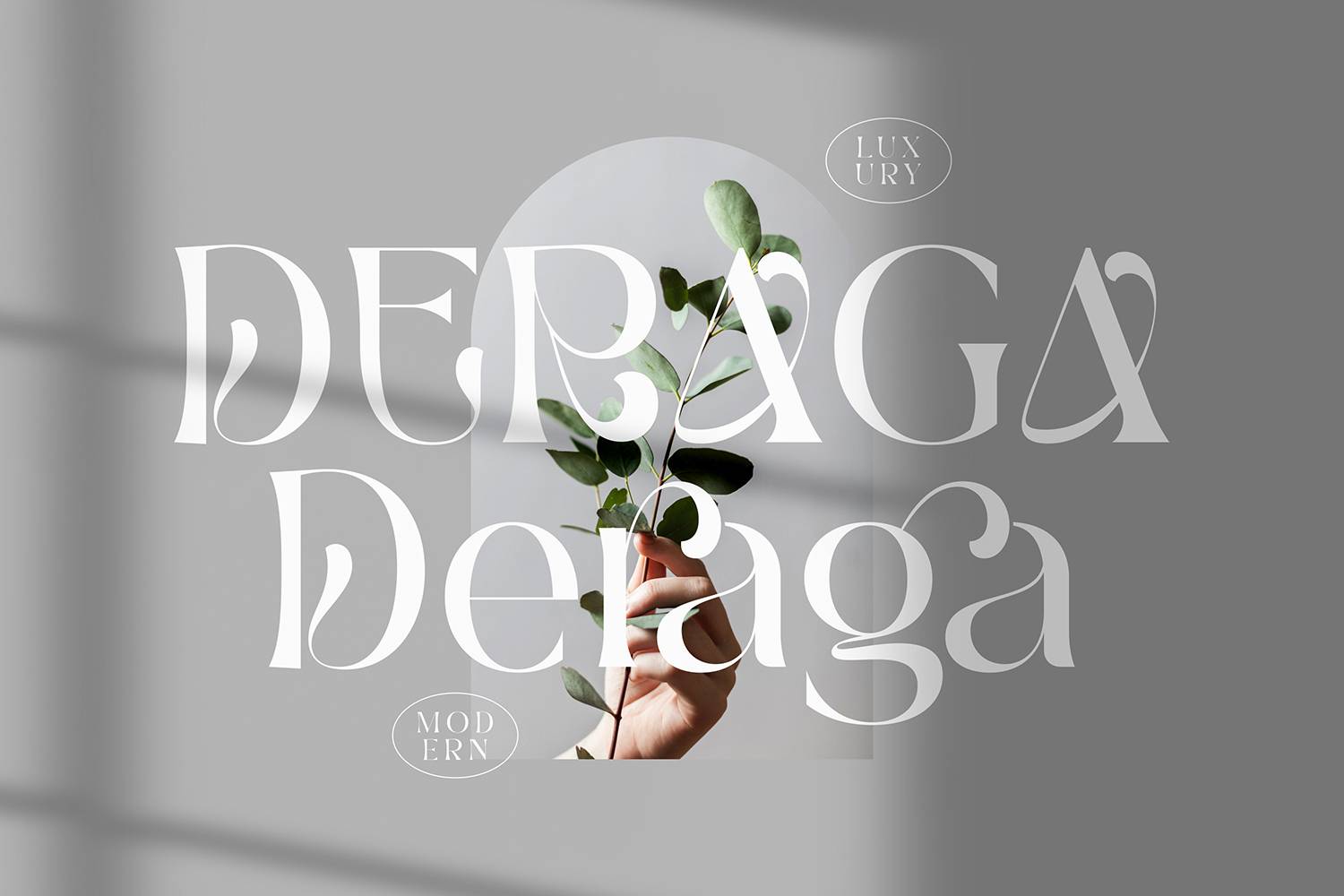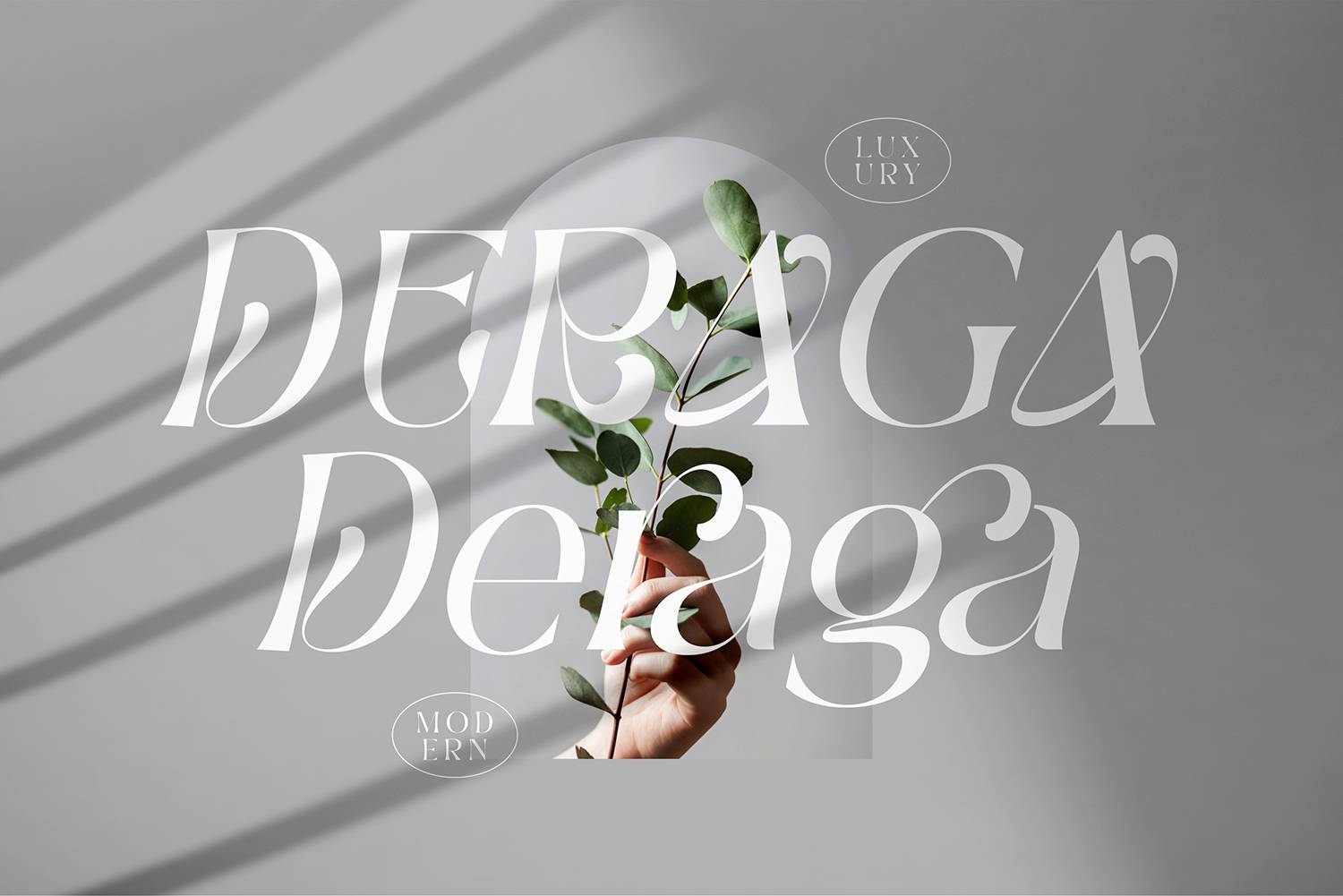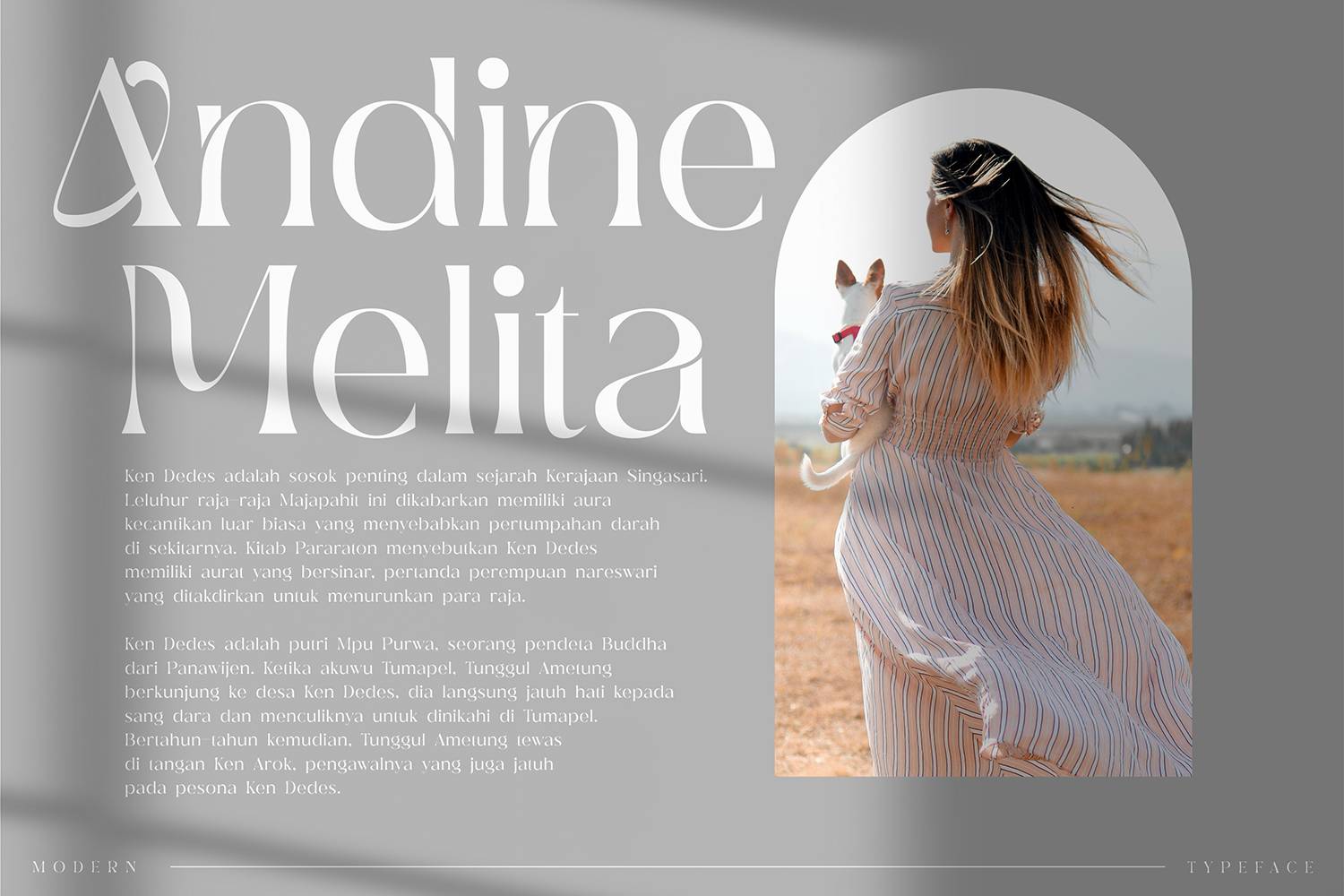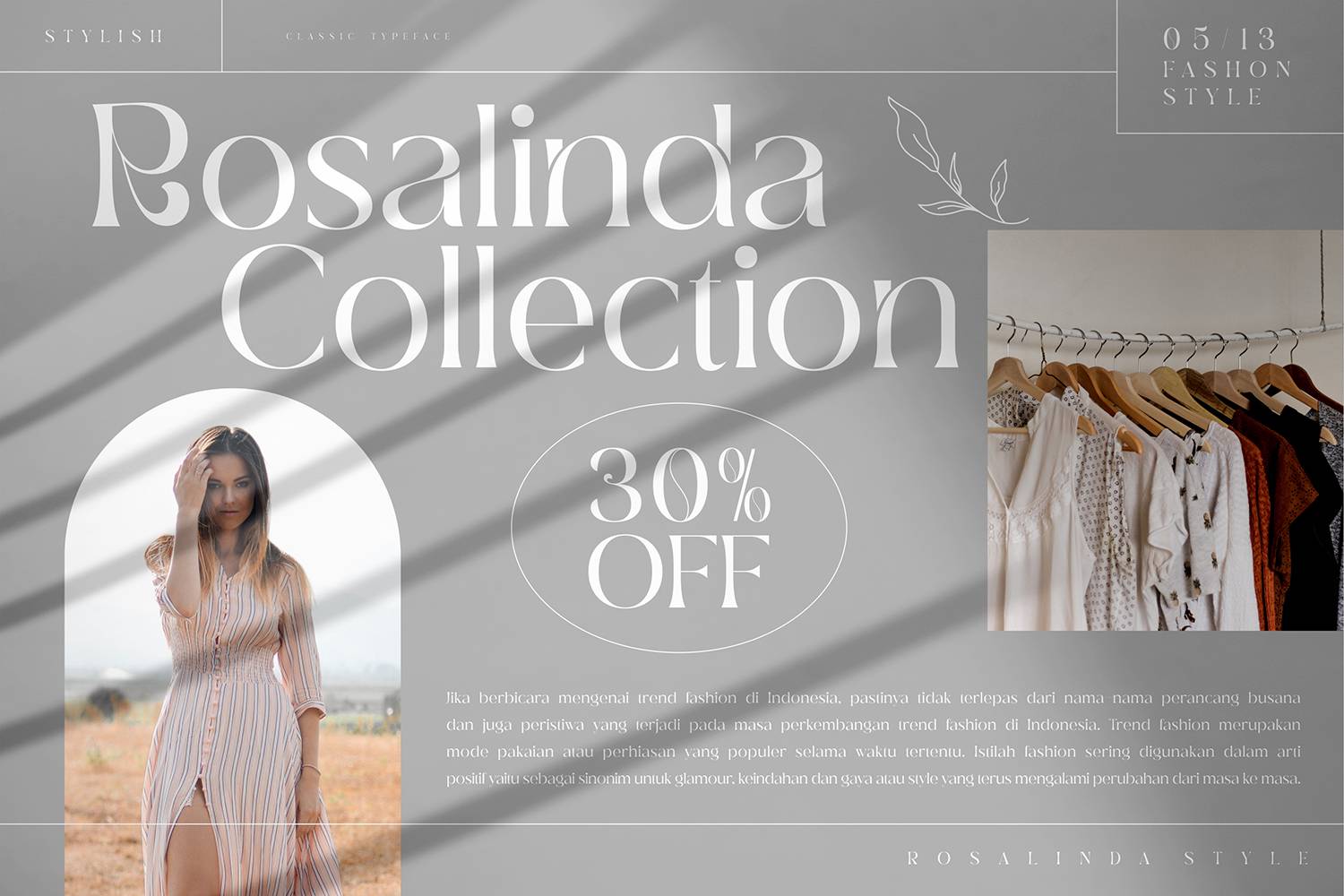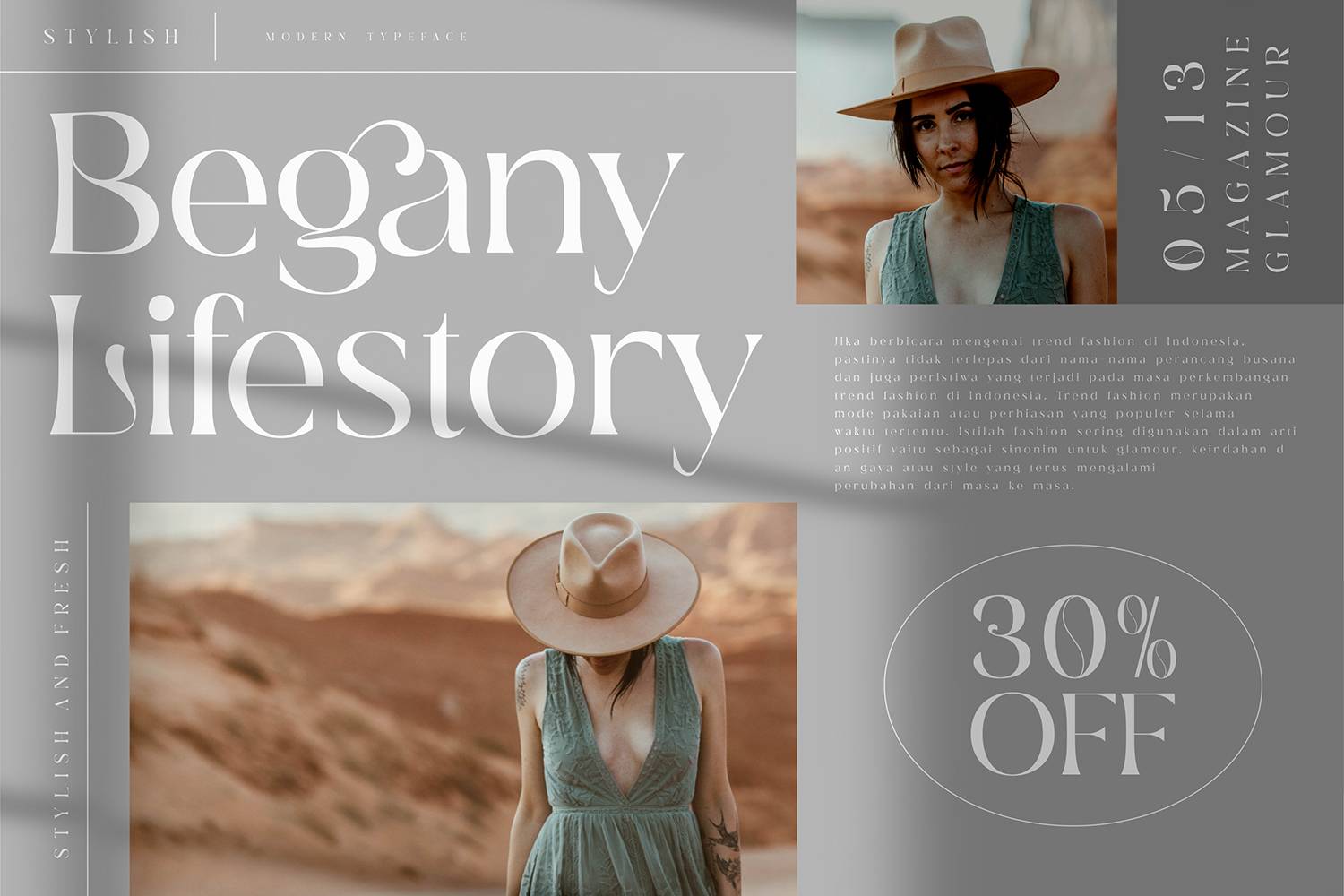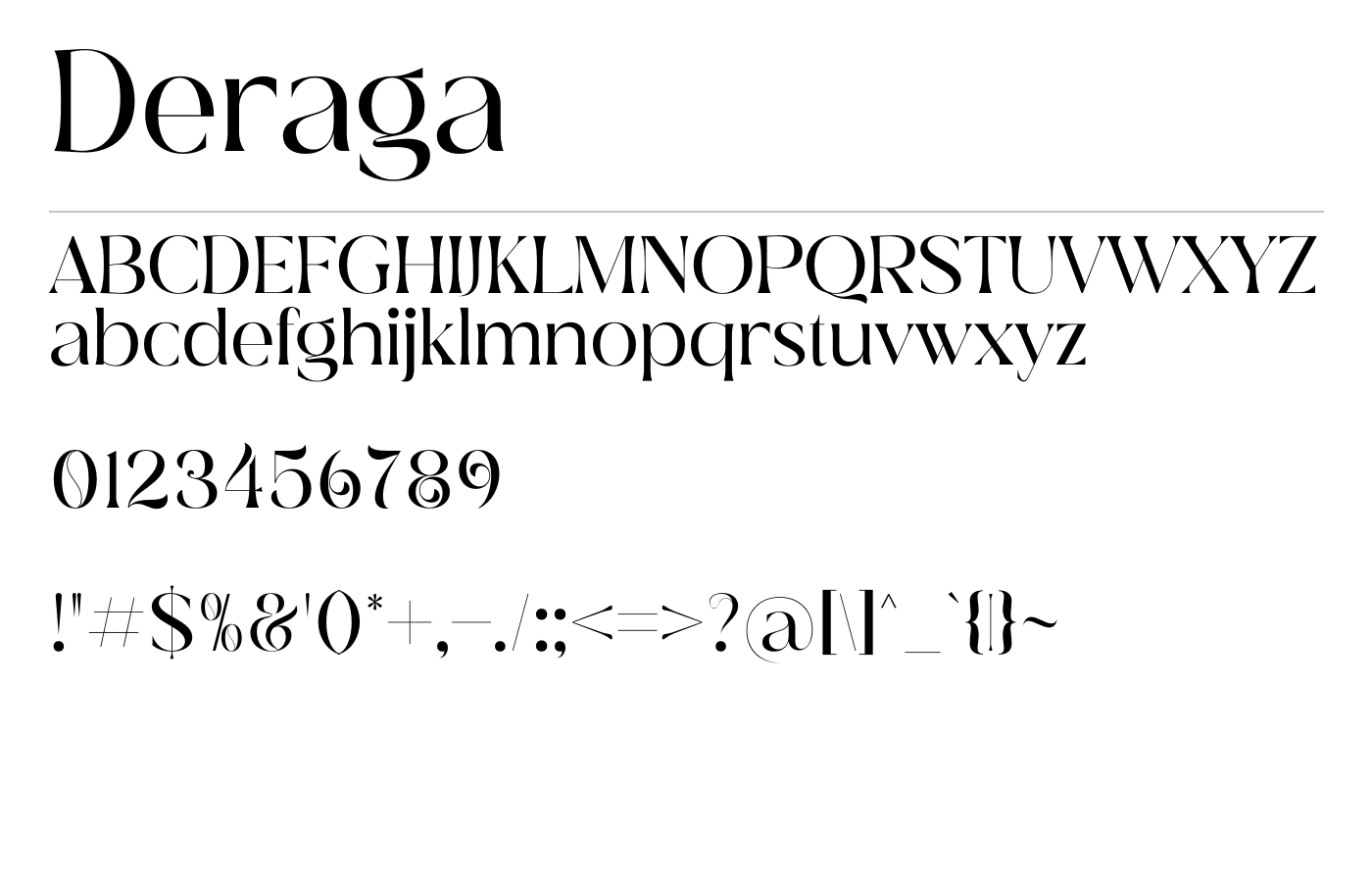
Deraga is a refined serif font with elegant, high-contrast strokes and delicate, tapered serifs that create a sophisticated and luxurious feel. Its unique letterforms, including stylized terminals and a distinctive Q tail, make it ideal for upscale branding, fashion, and editorial use where a modern yet classic look is desired. This font works beautifully in headlines and logos, lending a sense of grace and exclusivity to any design.
Deraga Font
About Deraga Font